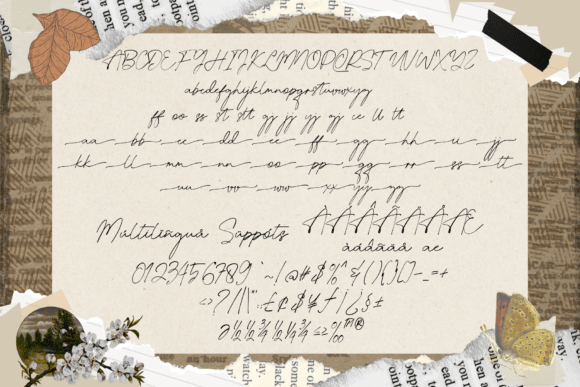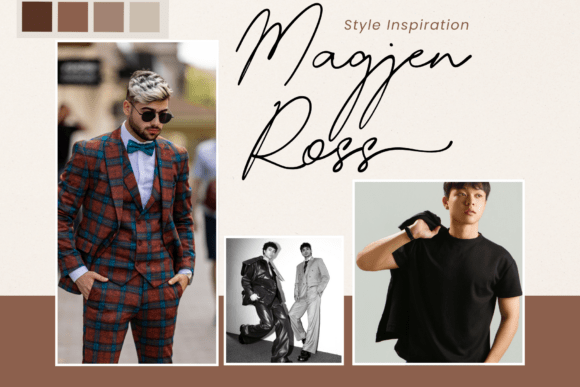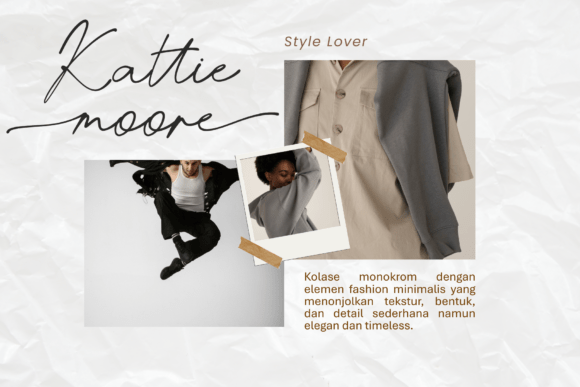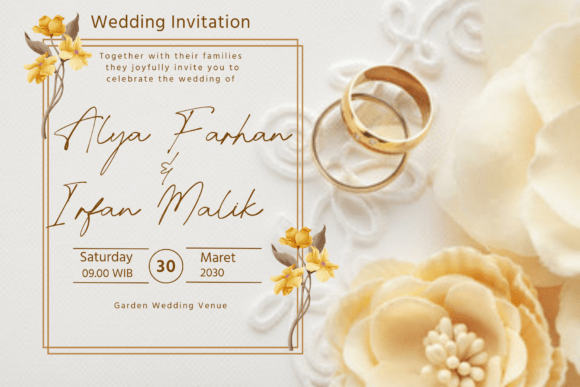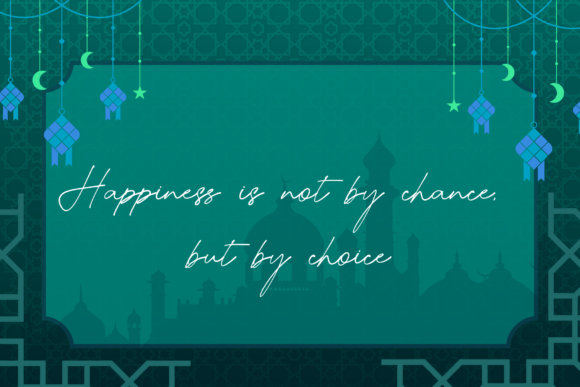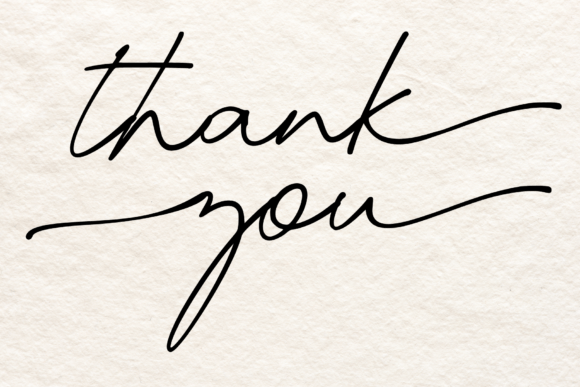
Introduction to Quellyra Shore Font Font
Fonts play a crucial role in design, and the Quellyra Shore Font font is a typeface that brings both character and versatility to any project. Whether you’re working on a branding project, a website, or a print design, the Quellyra Shore Font font offers a unique style that can elevate your work.
Embrace the beauty of organic movement with Quellyra Shore, a stunning script font that captures the essence of a handwritten masterpiece.
This typeface is defined by its dramatic, expressive loops and elongated swashes that feel as natural as ink flowing across paper Its thin, consistent line weight provides a contemporary βfine-linerβ aesthetic that is both sophisticated and raw.
Key Features of Quellyra Shore Font Font
Why Choose Quellyra Shore Font Font?
The Quellyra Shore Font font is more than just a typeface β it’s a design tool that helps you communicate your message with style and clarity. Its unique character set and versatile design make it suitable for a wide range of applications, from elegant invitations to bold headlines.
With its carefully crafted letterforms and balanced proportions, the Quellyra Shore Font font ensures readability and visual appeal across all mediums.
What makes Quellyra Shore Font font special?
The Quellyra Shore Font font stands out with its unique design, exceptional readability, and versatility across various design applications.